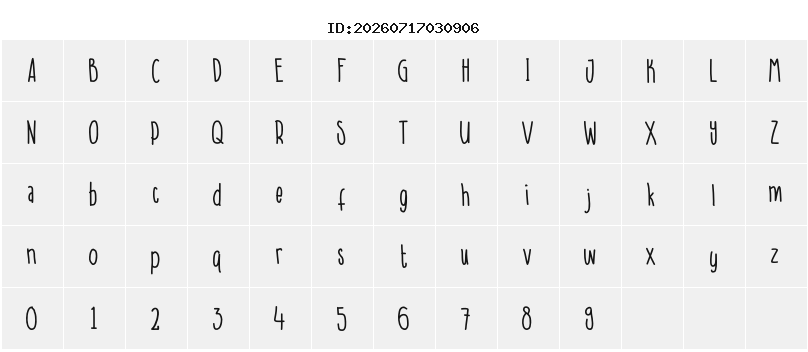
A Day in September Preview
About A Day in September.otf
A Day in September.otf is a modern, elegant sans-serif font designed for ultimate readability and visual harmony. Perfect for branding, headlines, web design, and print materials.